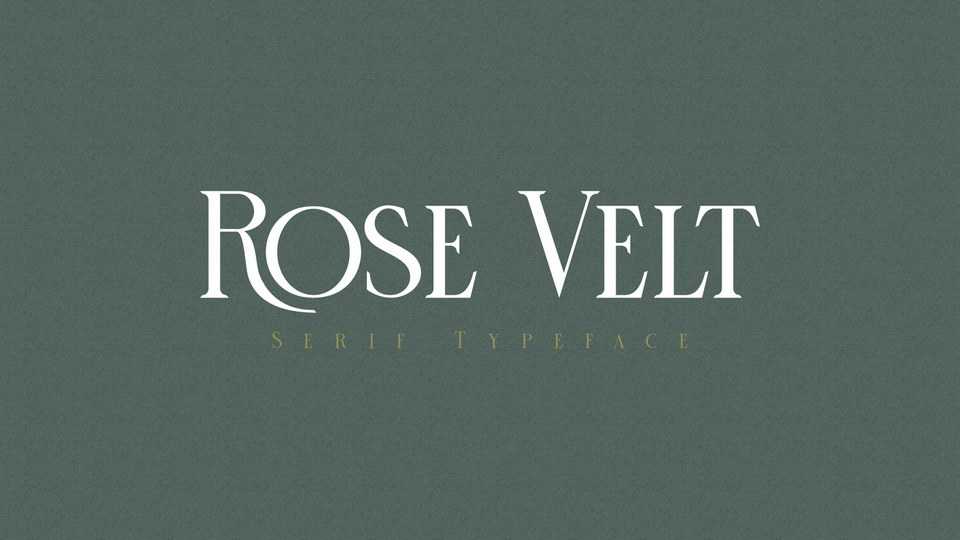
Download Rose Velt font, an elegant and distinct serif typeface. Rose Velt maintains its classy calligraphic influences while feeling contemporary and fresh.